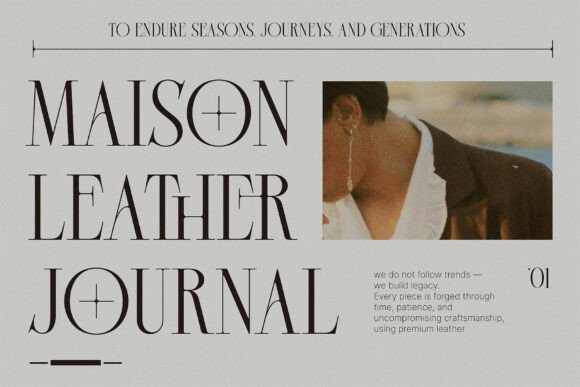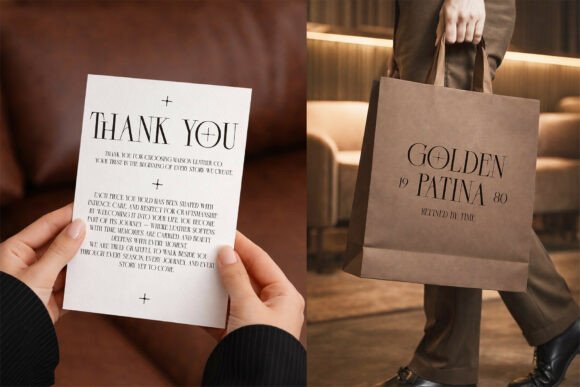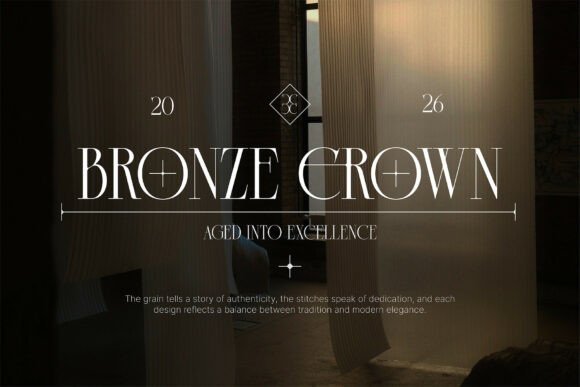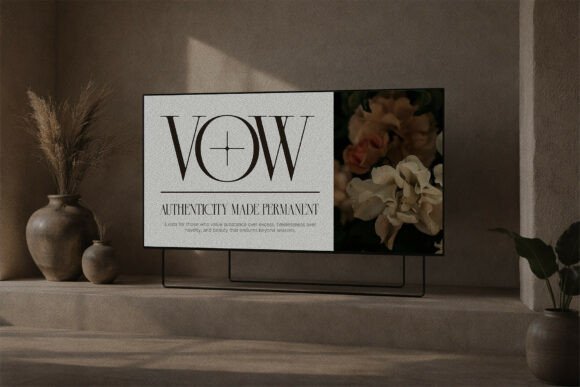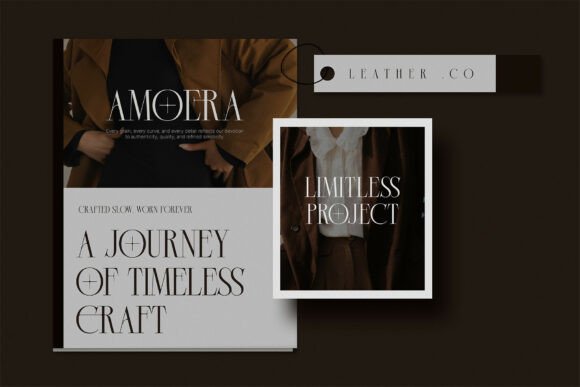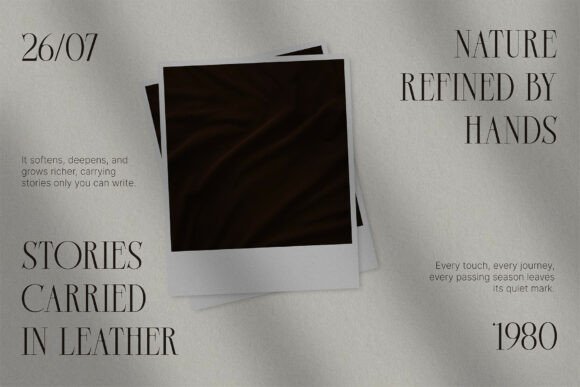
Introduction to Moerca Font
Have you ever been stuck on a creative project, searching for the perfect font to elevate your design and leave a lasting impression? For designers, finding that elusive font can be a challenge. But what if I told you there’s a font that could be the game-changer you’ve been looking for? Say hello to Moerca Font, a modern classy serif typeface designed specifically for premium and high-end design projects.
With its elegant proportions, clean structure, and refined details, Moerca Font delivers a polished editorial look that instantly elevates any layout. Whether you’re crafting a bold headline or a timeless brand identity, this versatile font provides a confident serif voice with a modern edge. And the best part? It’s easy to use and performs well across both print and digital media, making it a valuable resource for any designer.
From logos to branding, magazines to wedding invitations, Moerca Font is the perfect choice for designers seeking elegance, clarity, and professional results. And with its high-quality design, you can rest assured that your creative project will stand out from the crowd.
Key Features of Moerca Font
- High-quality design with a transparent background, perfect for creative projects that require a subtle yet eye-catching look.
- Features a unique, modern design that is sure to elevate any creative project, from branding and marketing materials to digital art and graphics.
- Designed with high-resolution graphics in mind, with a resolution of 300 DPI for crisp, clear text and graphics.
- Includes a range of characters, including uppercase and lowercase letters, numbers, and punctuation marks, making it a versatile design resource.
- Perfect for use in digital design projects, including websites, social media graphics, and mobile apps, due to its modern and sleek design aesthetic.
Honest Review: Moerca Font
As a designer, I’m always on the lookout for high-quality design resources that can elevate my creative projects. Recently, I stumbled upon the Moerca Font, and I’m excited to share my honest review.
What works well: ✨ The Moerca Font is incredibly versatile, with a wide range of styles and weights to choose from. It’s perfect for creating a professional-looking design that’s sure to impress. The transparent background is also a huge plus, making it easy to integrate with any design.
Some of the key features that I love about the Moerca Font include:
- High-quality design with precise lines and shapes
- Wide range of styles and weights to choose from
However, I did encounter a few limitations: ⚠️ The font can be a bit tricky to customize, and some of the styles may not be suitable for small text sizes.
Overall, I’m really impressed with the Moerca Font. It’s a high-quality design resource that’s perfect for any creative project. With its versatility and transparent background, it’s definitely a great addition to any designer’s toolkit.
Common Use Cases for Moerca Font
Moerca Font is perfect for a variety of creative projects, including graphic design, branding, and digital art. Its high quality and transparent background make it a valuable design resource for any project.